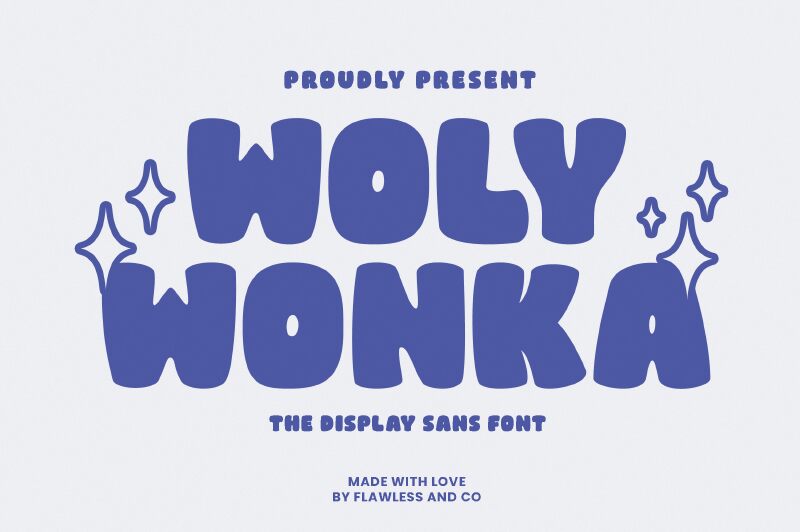
Woly Wonka Regular
Woly Wonka font by Achmad Yani of Flawless & Co. is a colorful bold cartoon display font whose presence immediately draws attention. It is quirky, rounded, and retro-inspired while being friendly and casual at the same time to make sure it gives your work a fun touch. If you have seen the Hollywood movie “Willy Wonka and the Chocolate Factory”, this typography tries to give off the same vibes just right there in your face!
Using it will make perfect sense for projects such as packaging design of any edible product (candies, chocolates, pastries). Creating business cards, logos/posters for schools or for kids in general. Invitation cards to birthdays/parties or comic/magazine titles etc are also among its potential use cases.